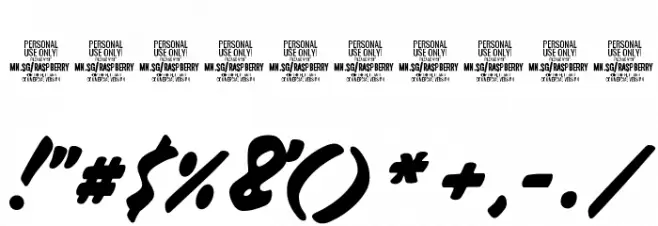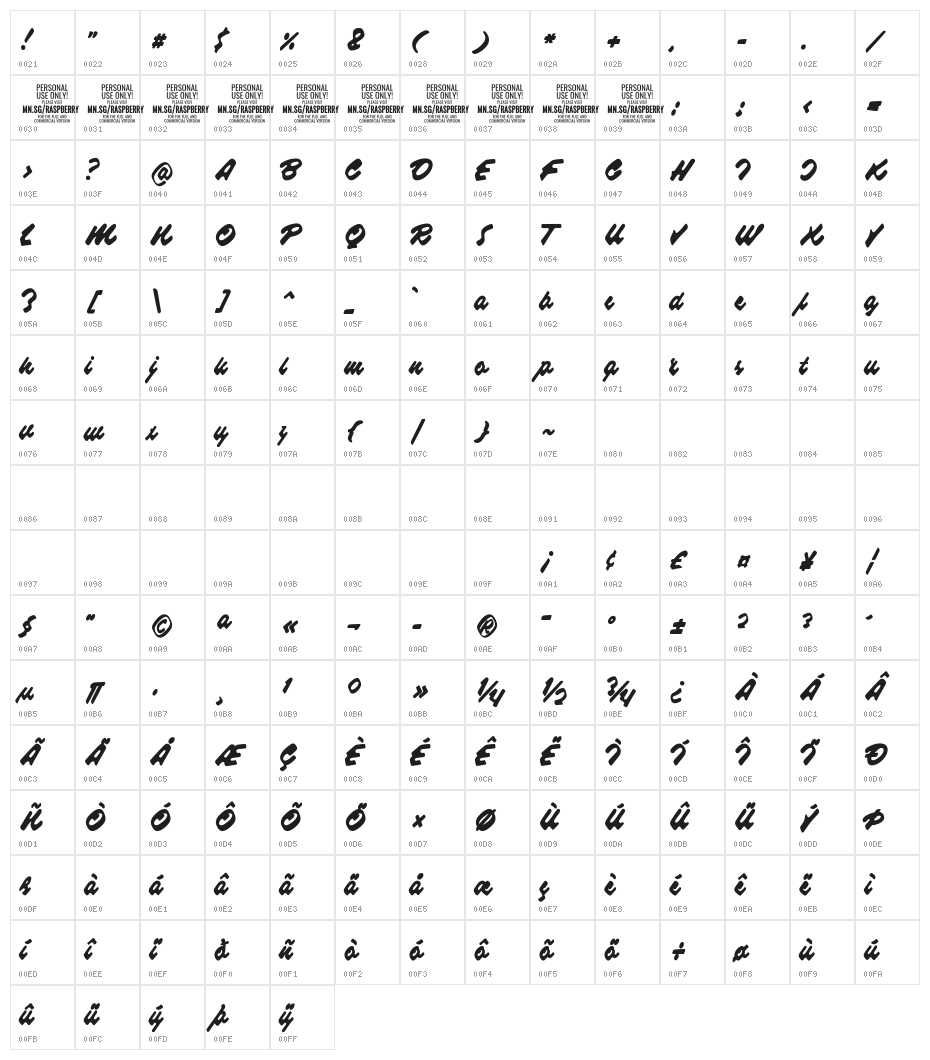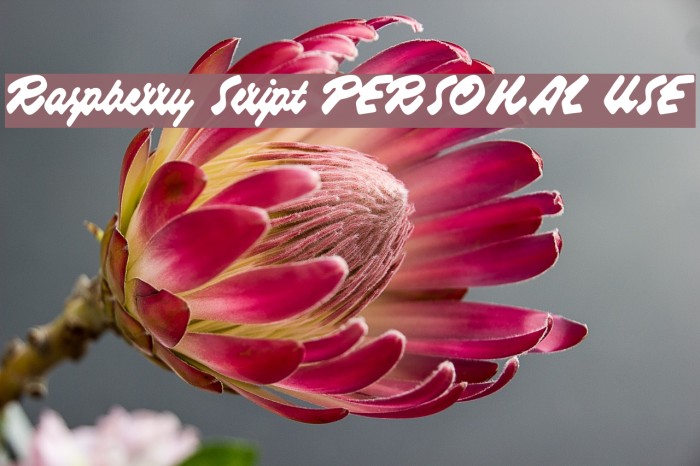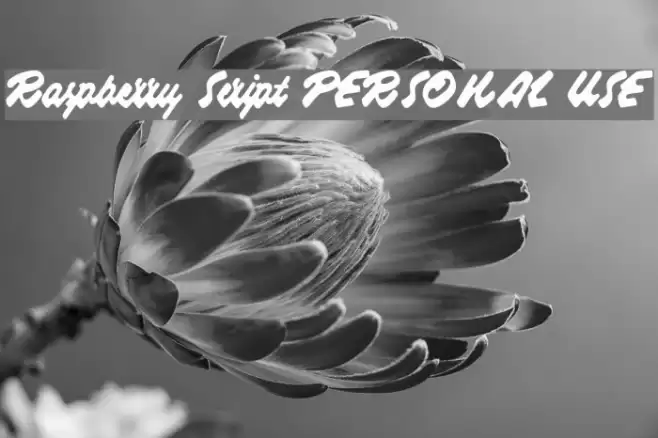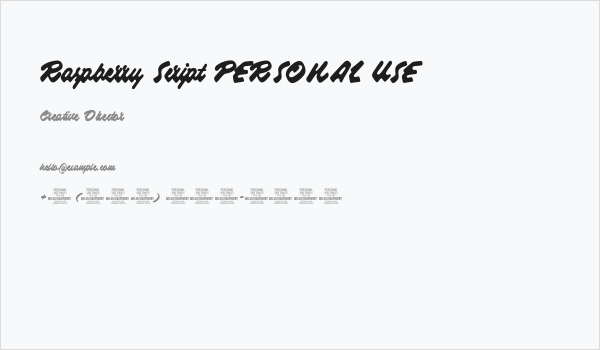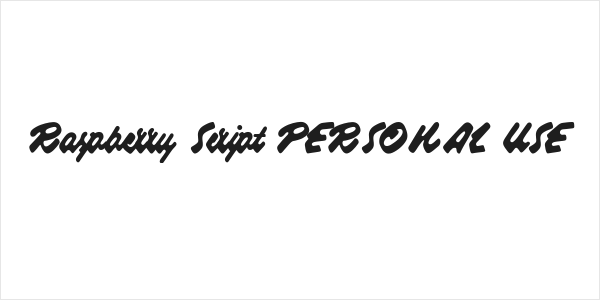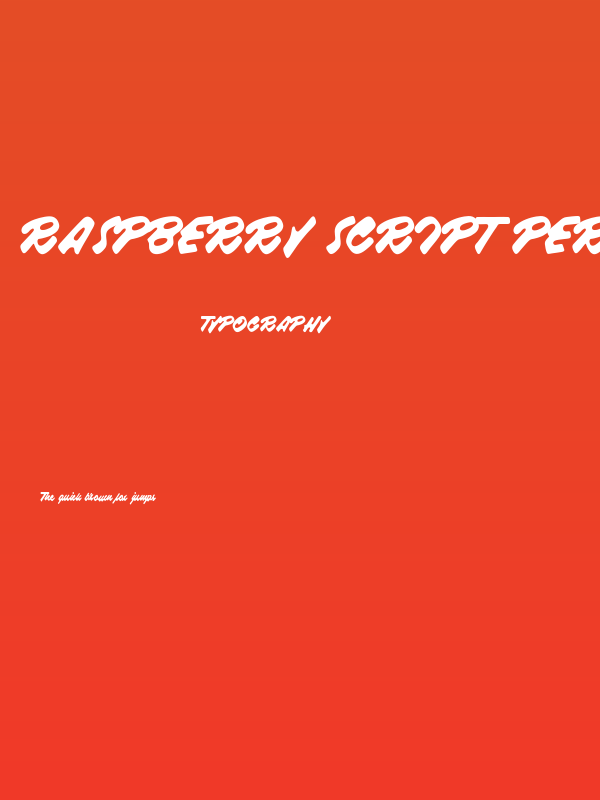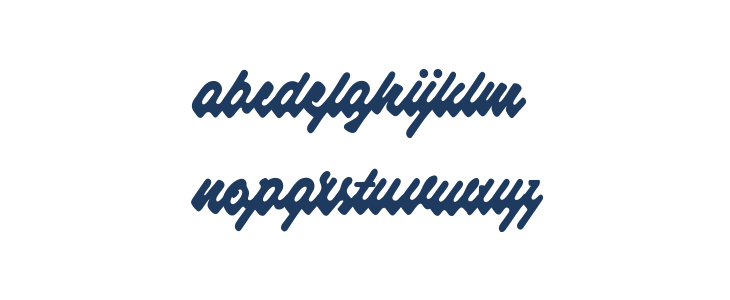
Raspberry Script PERSONAL USE Font
Raspberry Script PERSONAL USE Description
This font features a bold, cursive style with a playful and energetic flair. The letters are interconnected, creating a flowing script that mimics natural handwriting. The uppercase letters are slightly larger and more pronounced, while the lowercase letters maintain a consistent flow. The characters have a uniform thickness, contributing to a cohesive and balanced appearance. The font includes a full set of uppercase and lowercase letters, numbers, and a variety of special characters, making it versatile for different design needs. Its bold strokes and smooth curves give it a dynamic and lively feel, suitable for creative and informal projects.
| Proposed Projects | Ideal for greeting cards, invitations, logos, and branding projects that require a personal and lively touch. |